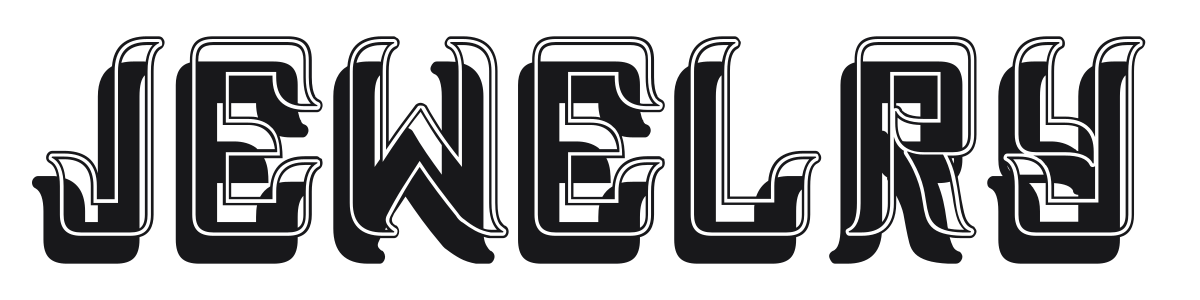
Jewelry
Jewelry is a heavy condensed display font built around a striking multi-layered inline effect that mimics engraved or stamped metal lettering. The combination of a thick outer stroke, inner outline, and recessed drop shadow gives each character a dimensional, jewel-cut quality. It draws directly from Art Deco glamour and works best at large sizes where all that layering can breathe.